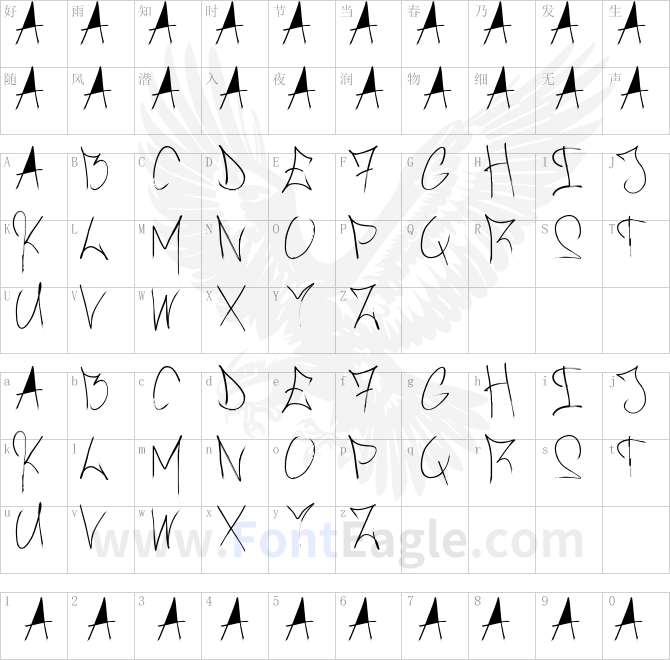
Brush_Of_Anarchy is a great font, widely used in graphic design, single-page menu design, poster design and other fields, and is deeply loved by designers.Brush_Of_Anarchy download.